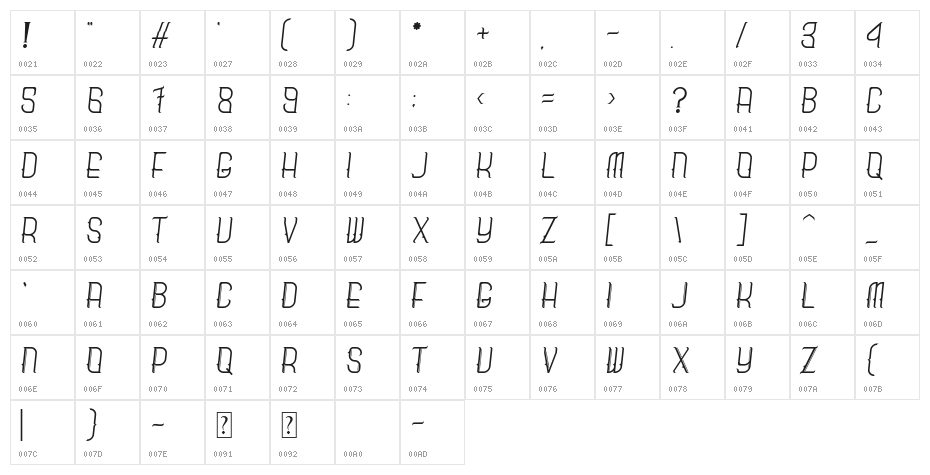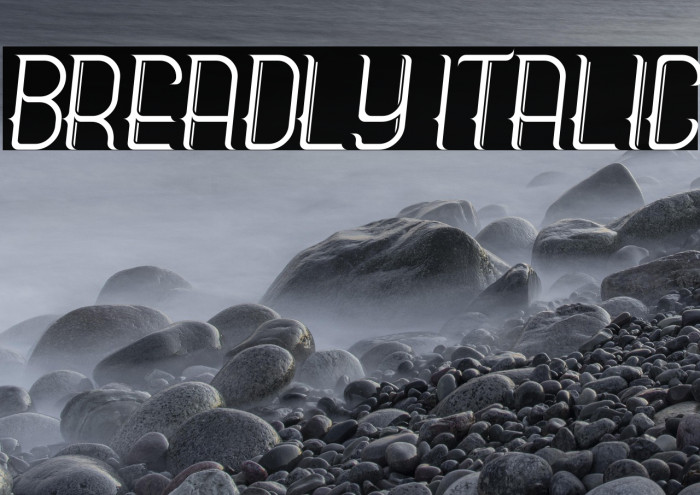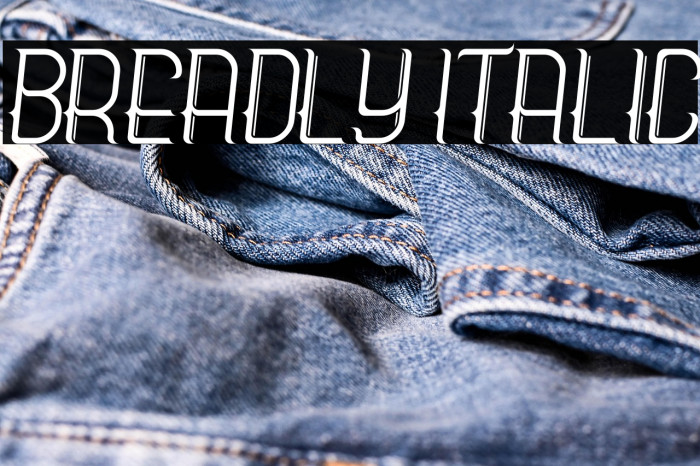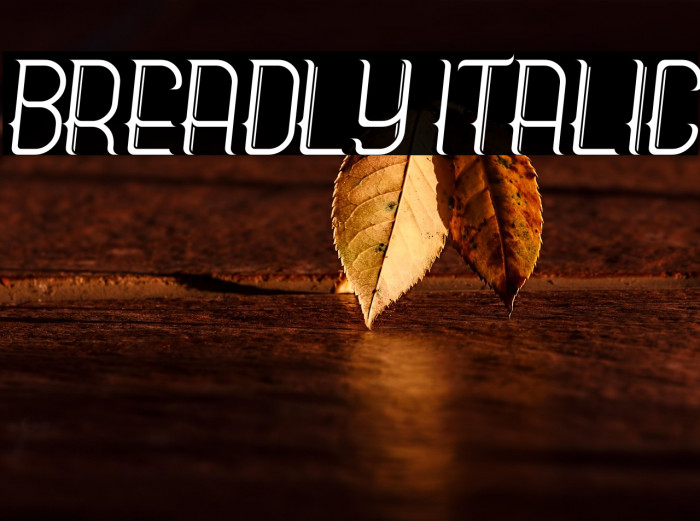
Breadly Italic Font
Breadly Italic Description
This font features a unique blend of modern and decorative elements, characterized by its italicized, elongated letterforms. The strokes are bold with a medium contrast, giving it a dynamic and stylish appearance. The characters have a distinct slant, enhancing the italic effect, while maintaining a consistent width throughout. The design incorporates sharp angles and smooth curves, creating a visually striking aesthetic. The spacing between characters is normal, ensuring readability while preserving its artistic flair. This font is well-suited for projects that require a touch of elegance and modernity.